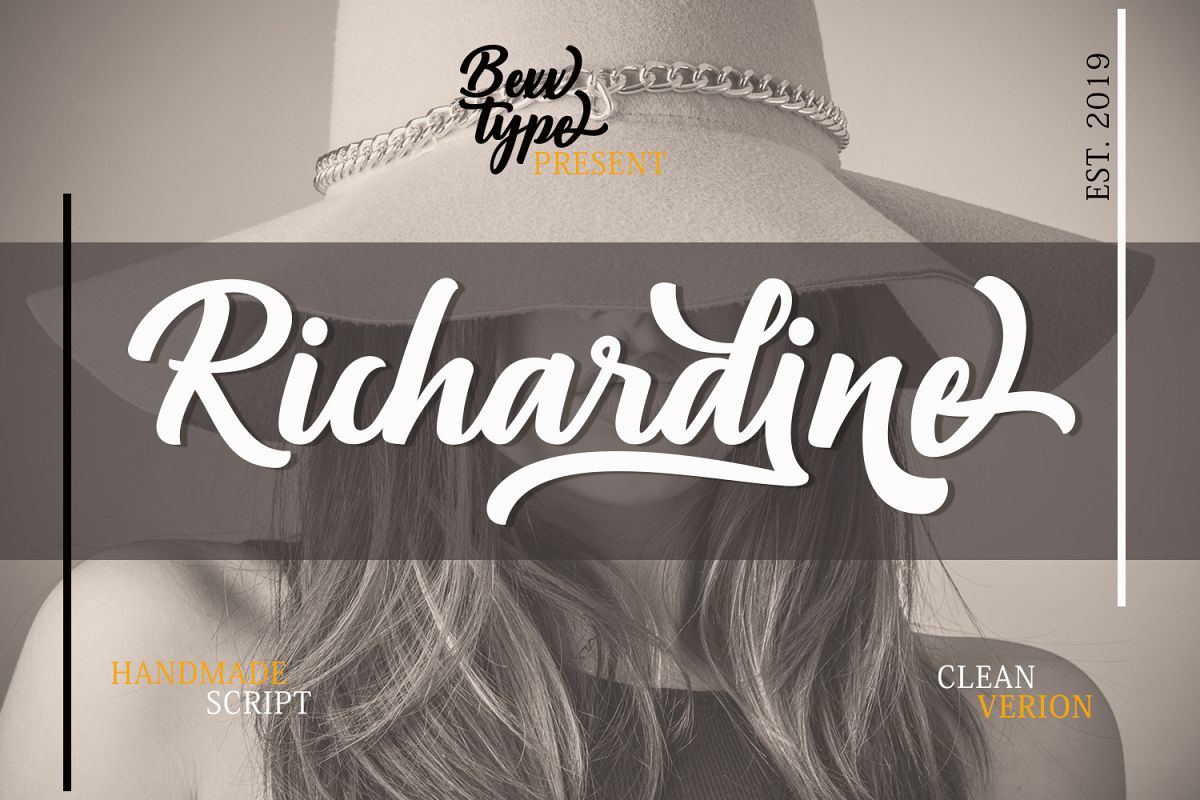
Richardine Script
Richardine Script is retro signage font, bold and clean. There are so many variations on each character. Include Opentype stylistic alternates. You are able to create so many different typographical layouts easily and quickly. Make sure you use OpenType savvy program and simply open Glyph Palette to access all of the glyphs. This font is suitable for t-shirts, signage, logos, headlines, branding, packaging, etc.
Richardine Script features 364 glyphs and alternate characters. including initial and terminal letters, alternates, ornament, swash, ligatures and multiple language support.